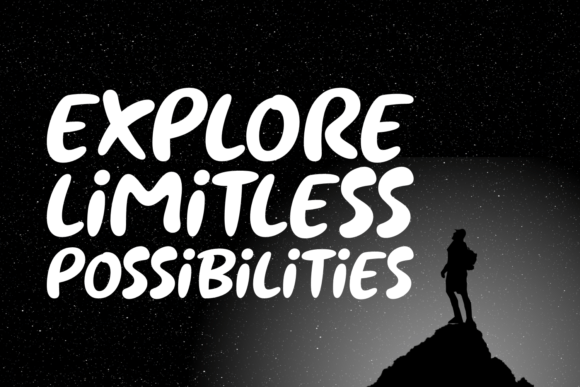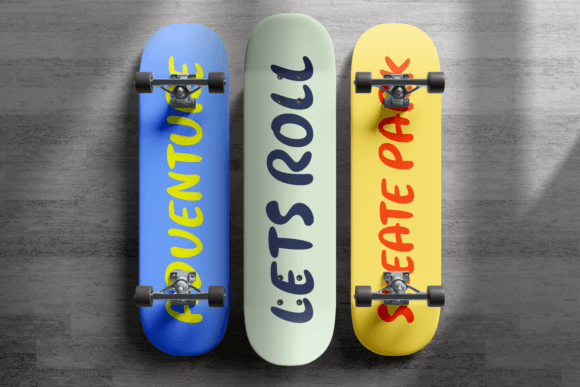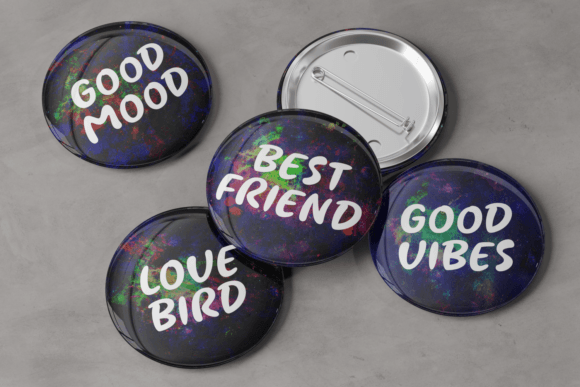
Introduction to Simple Friend Font
Meet β€œSimple Friend,” your go-to font for a casual and friendly vibe.
With its hand-brushed style, this font adds a touch of simplicity to your projects Perfect for a laid-back, approachable feel in your designs.
Key Features of Simple Friend Font
Why Choose Simple Friend Font?